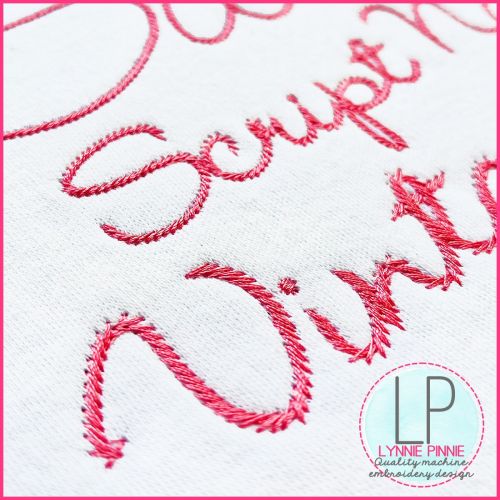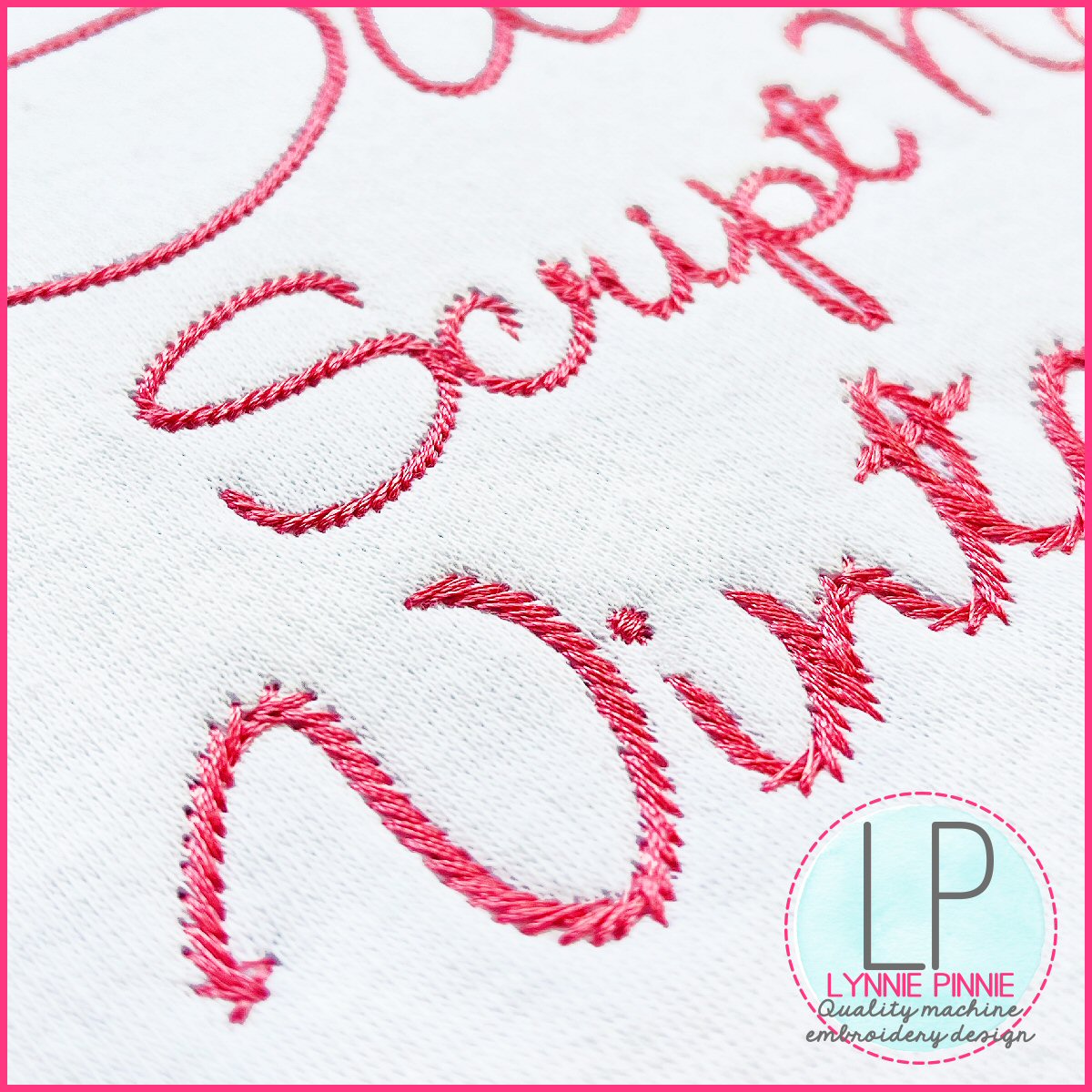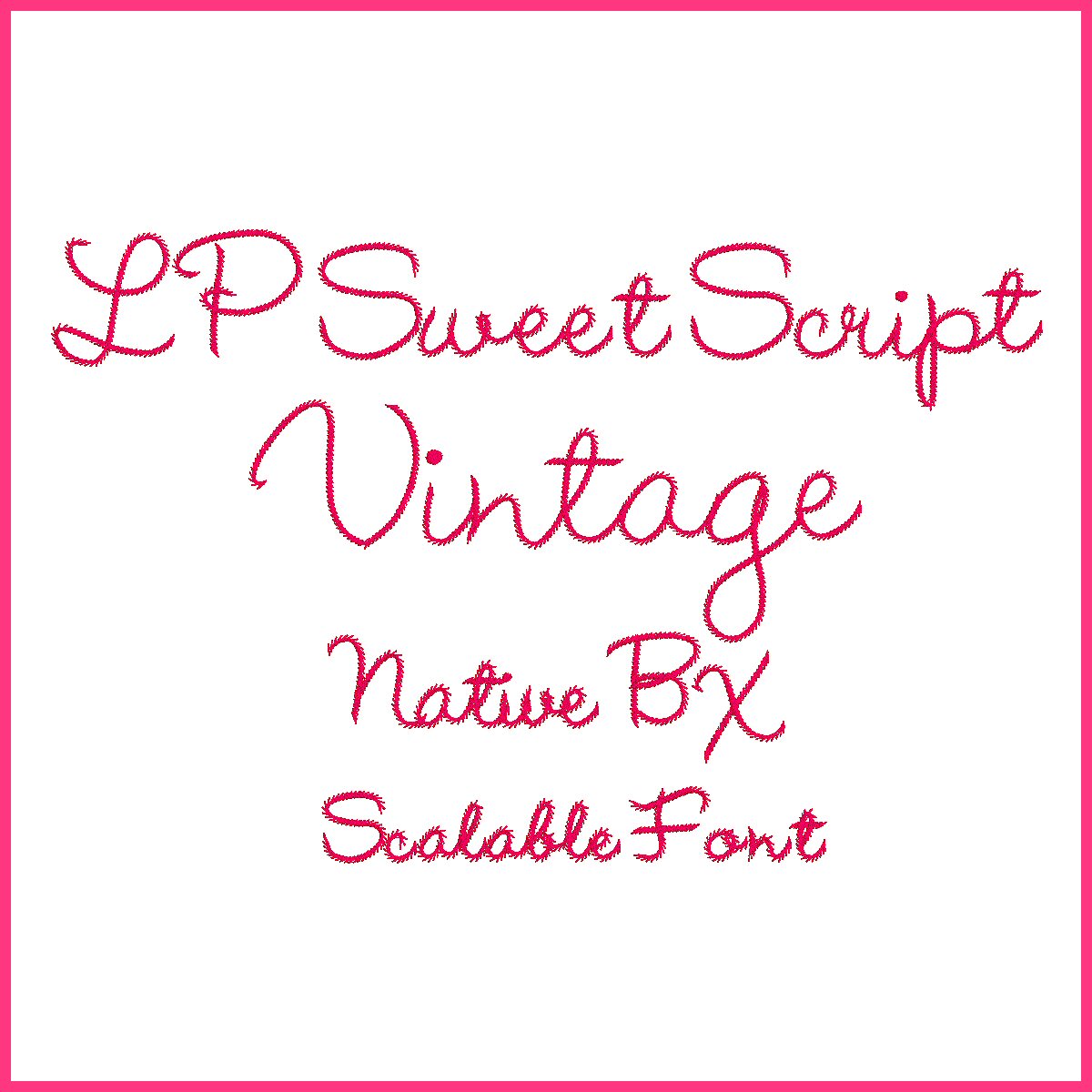
Sweet Script Bold Vintage Stitch Font Uppercase & Lowercase Font DIGITAL Embroidery Machine File -- 5 sizes + Native BX Embroidery Font Scalable
This unique vintage style script font is bolder than a bean stitch but quicker than a satin stitch font.